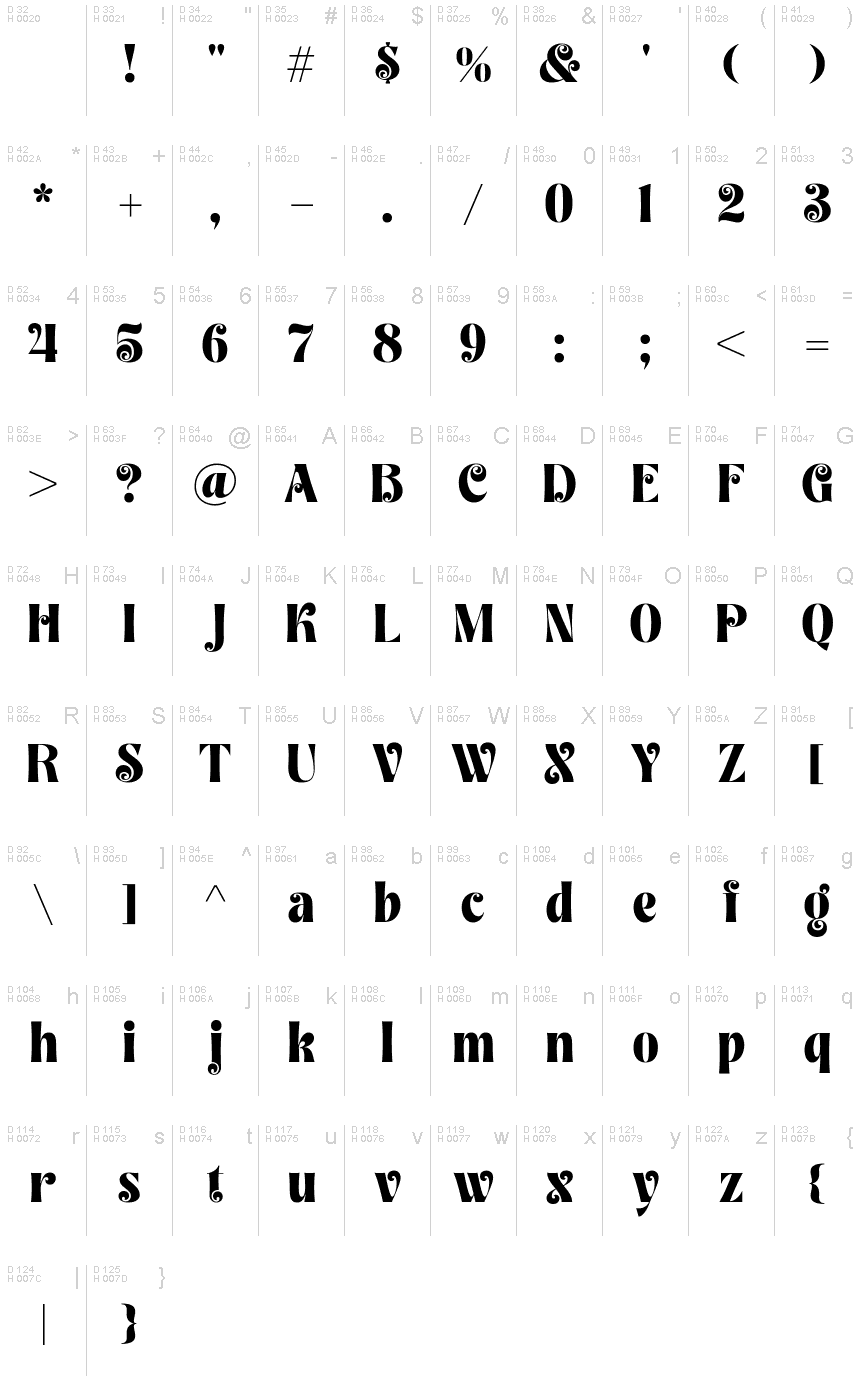
Folkin Regular
Folkin, a bold and retro display font by Handpik, brings a touch of nostalgia to any design project. Its bold weight ensures that your message stands out with confidence and impact.
With its vintage charm, Folkin is the perfect choice for album covers, posters, and packaging designs that seek to capture the essence of a bygone era.
Embrace the retro aesthetic and let Folkin transport your audience back in time with its distinctively bold and captivating style.